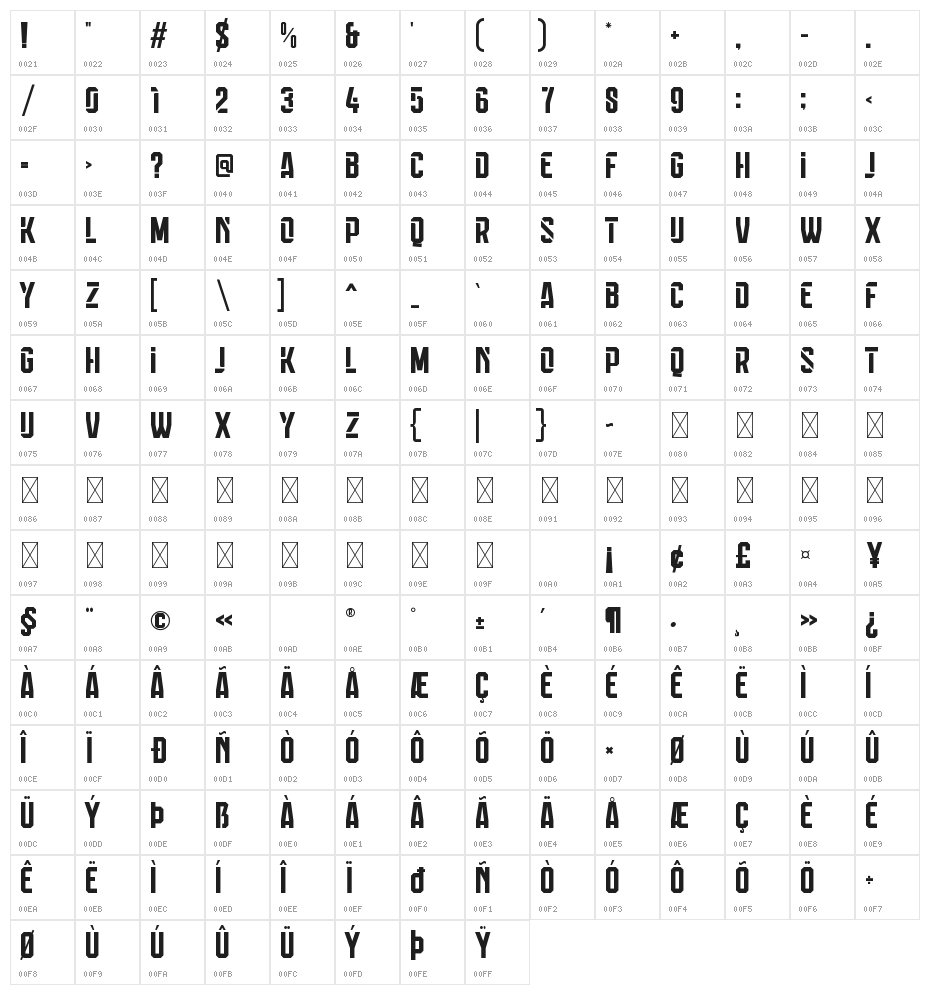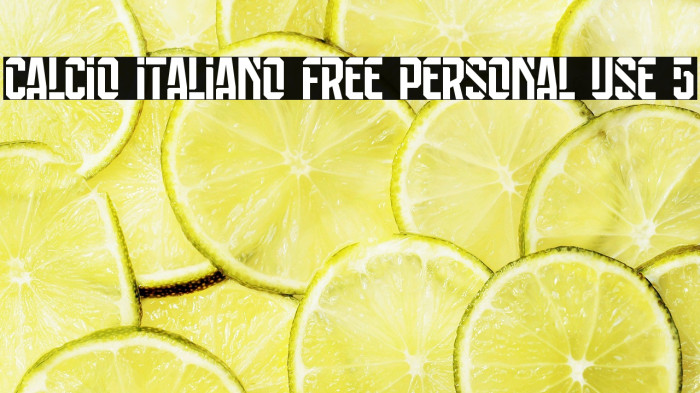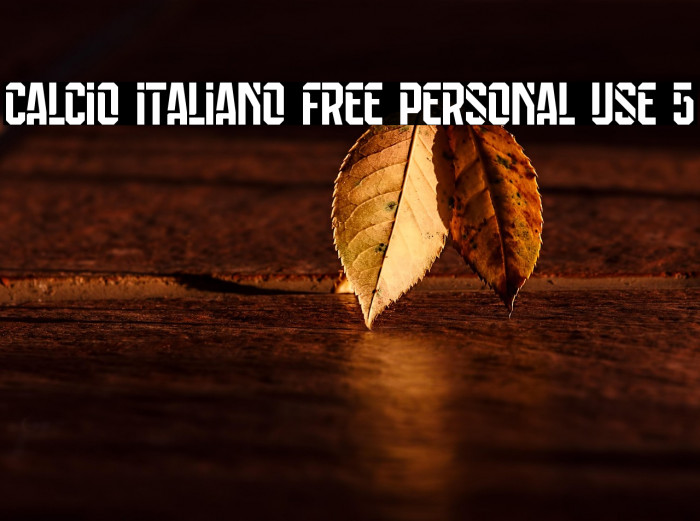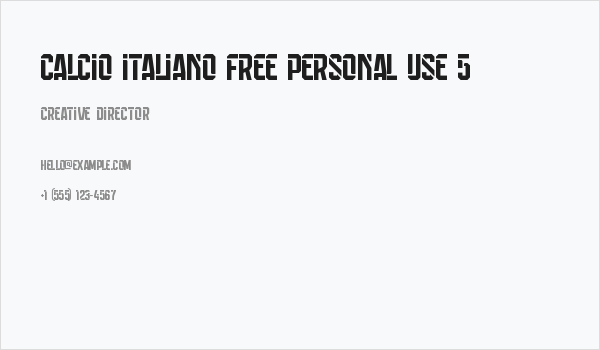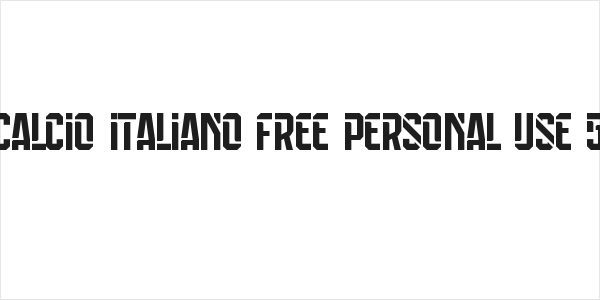
Calcio Italiano Free Personal Use 5 Font
Calcio Italiano Free Personal Use 5 Description
This font exhibits a bold, geometric style with sharp angles and a strong presence. The uppercase letters are characterized by their blocky, angular shapes, giving them a modern and assertive look. The lowercase letters maintain this geometric style, ensuring consistency throughout the typeface. Numbers and special characters follow the same design principles, making them easily recognizable and visually cohesive. The font's distinct appearance makes it suitable for attention-grabbing designs.